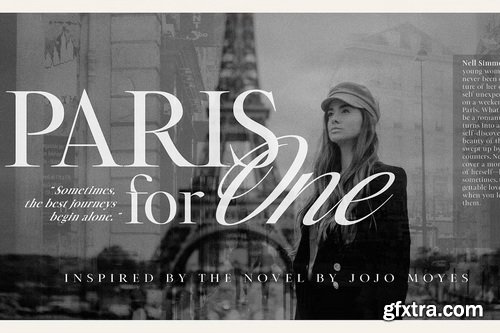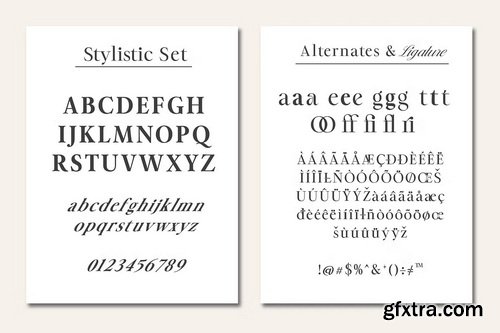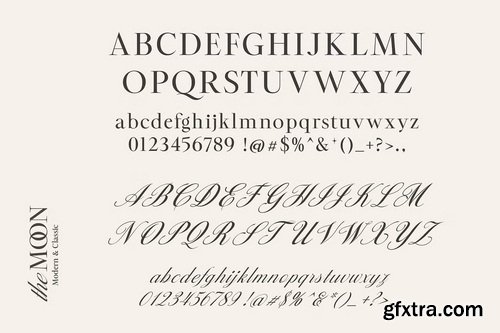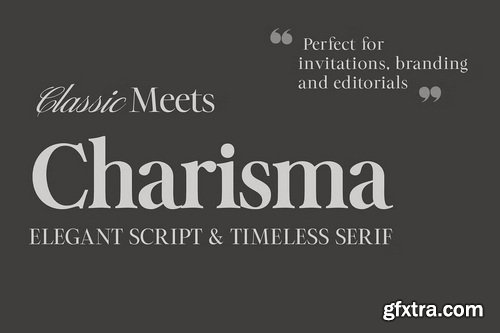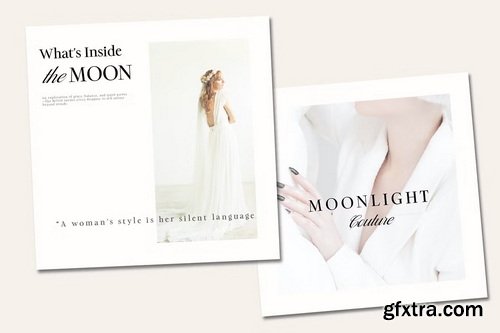
CreativeMarket - The MOON – Modern & Classic Serif
Introducing The MOON — A Modern & Classic Font Duo. The MOON combines timeless serif elegance with a romantic script flair. Designed for designers and creatives seeking refined, high-fashion aesthetics, The MOON is perfect for branding, wedding invitations, editorial design, packaging, and more.